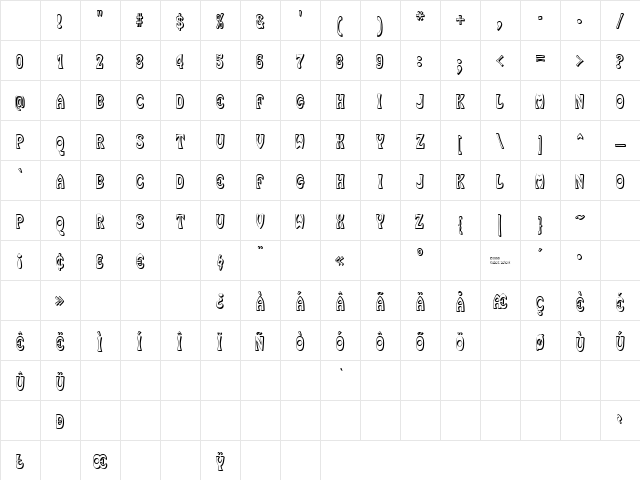
Complete SmokeHausShadow Regular glyph index. Displaying only characters natively supported by SmokeHausShadow Regular font.
SmokeHausShadow is built around its visual character rather than neutral utility - its distinctive forms are designed to make an impression at display sizes.
Font Pairing: Pair with a clean neutral sans-serif for body copy to let SmokeHausShadow's character lead without overwhelming the composition.
Pro Tip: Use SmokeHausShadow exclusively at display sizes - it was designed to be seen, not read at length. Let a neutral companion handle body copy.